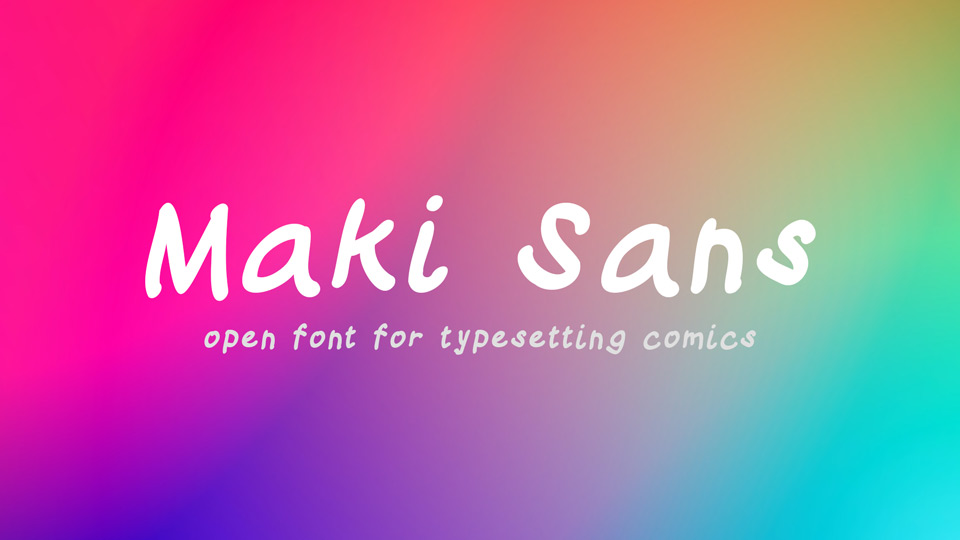
Download Maki Sans font, a casual hand lettered typeface for typesetting comics. Maki Sans is also perfect for flyers, greeting cards, product packaging, crafts, printed quotes, apparel design and so on.